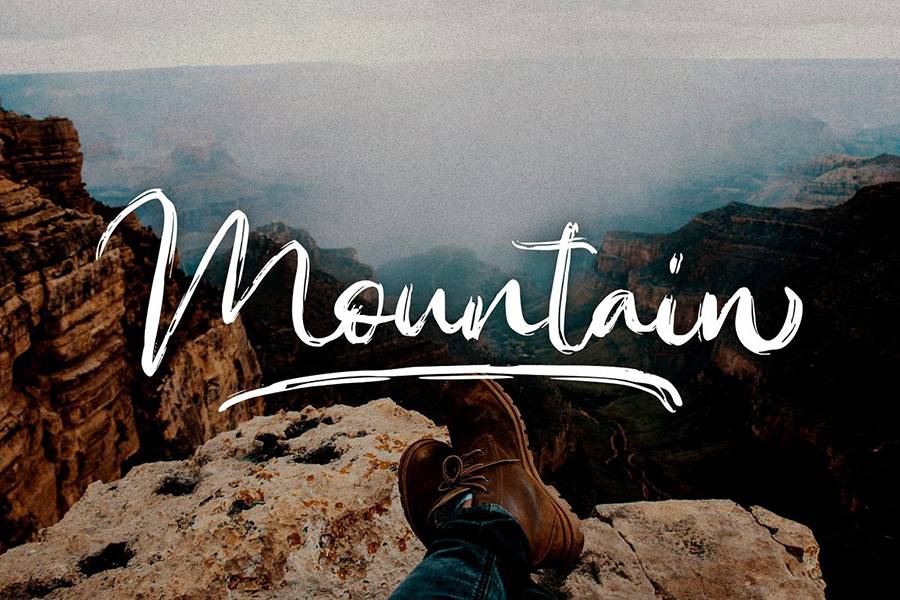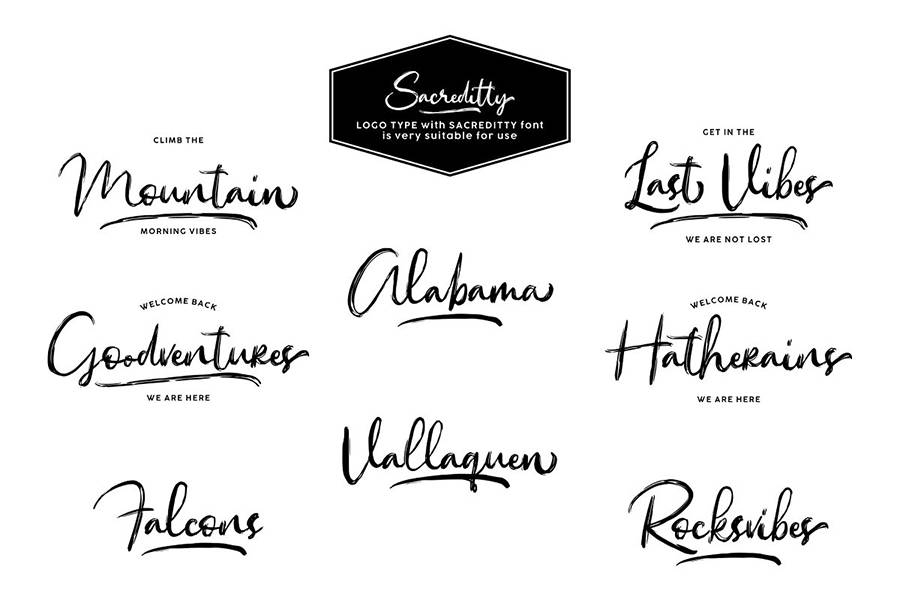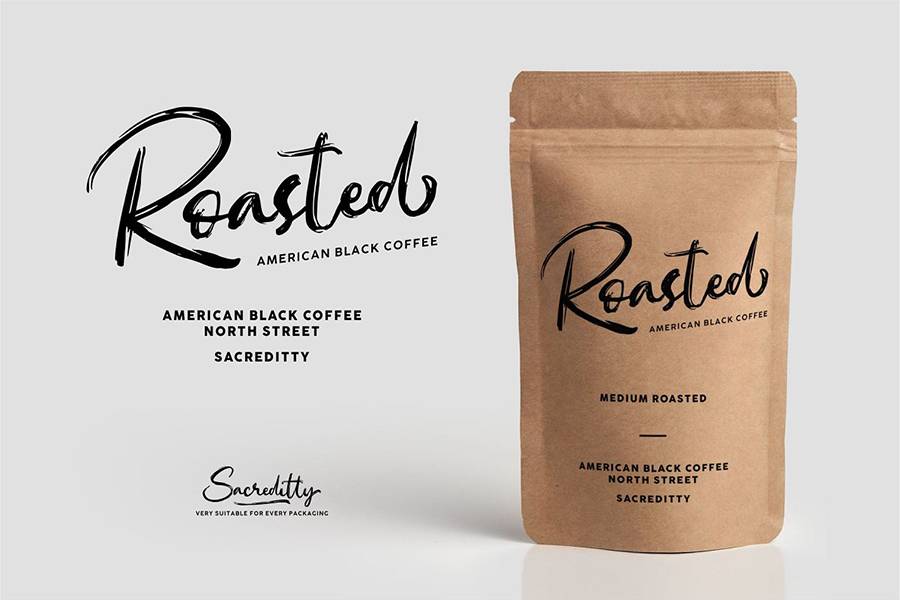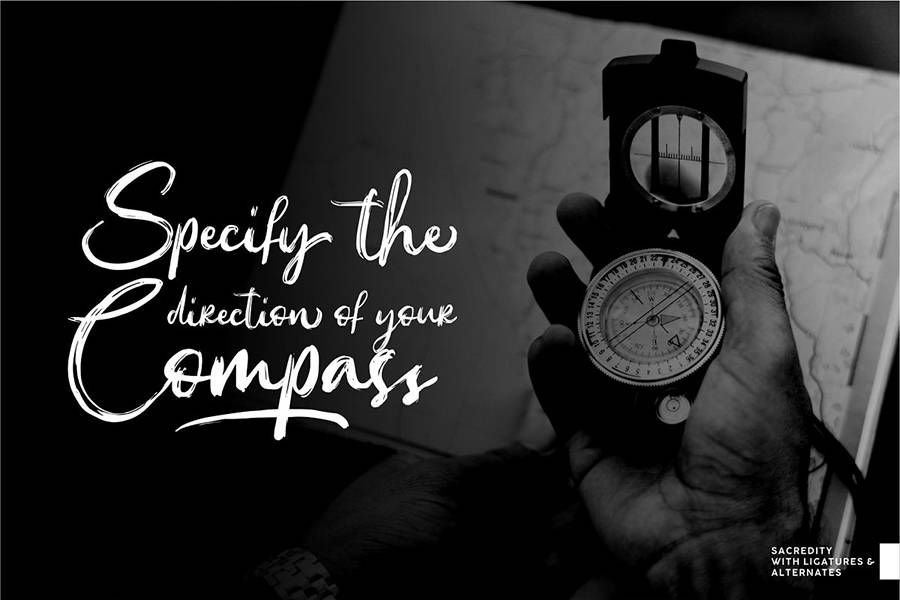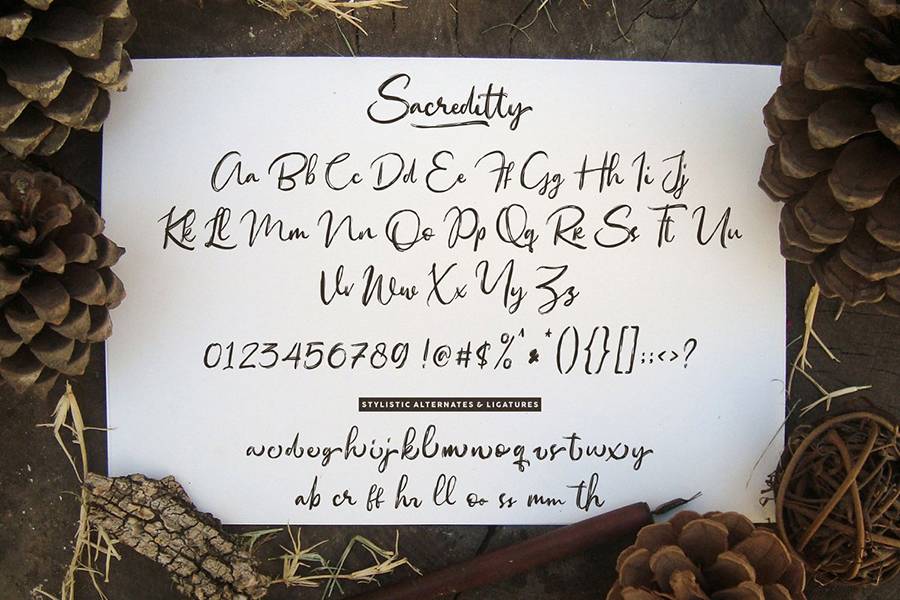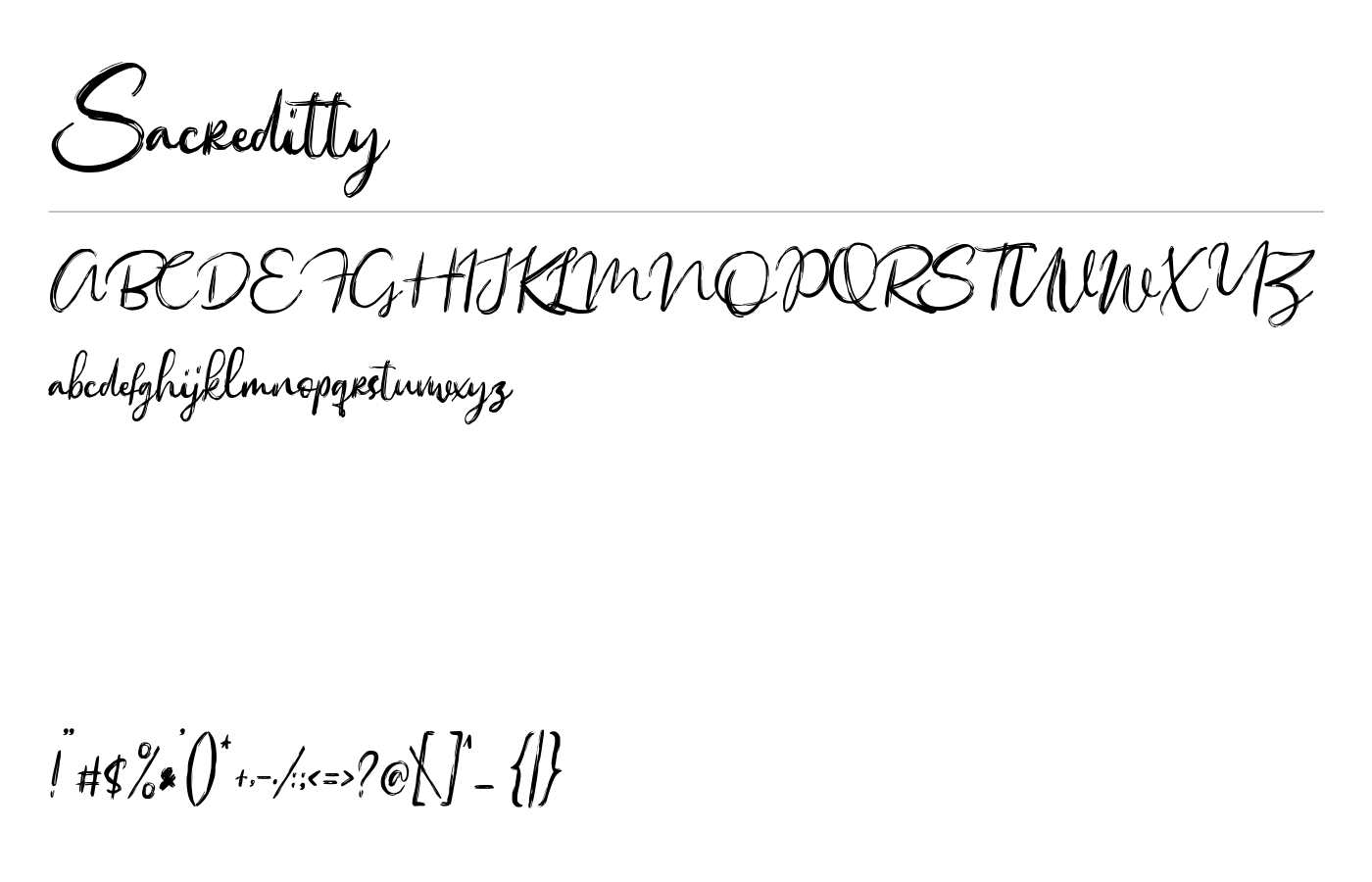
Sacreditty Script Demo is a lively and expressive handwritten script font characterized by its fluid, irregular strokes and playful yet elegant style. It features a dynamic contrast between thick and thin lines, giving it an organic, brush-like appearance that works beautifully for creative and personal branding. Ideal for invitations, logos, and artistic designs, this font adds a charming, handcrafted touch that feels modern and approachable.
Sacreditty Script Demo
About Sacreditty Script Demo